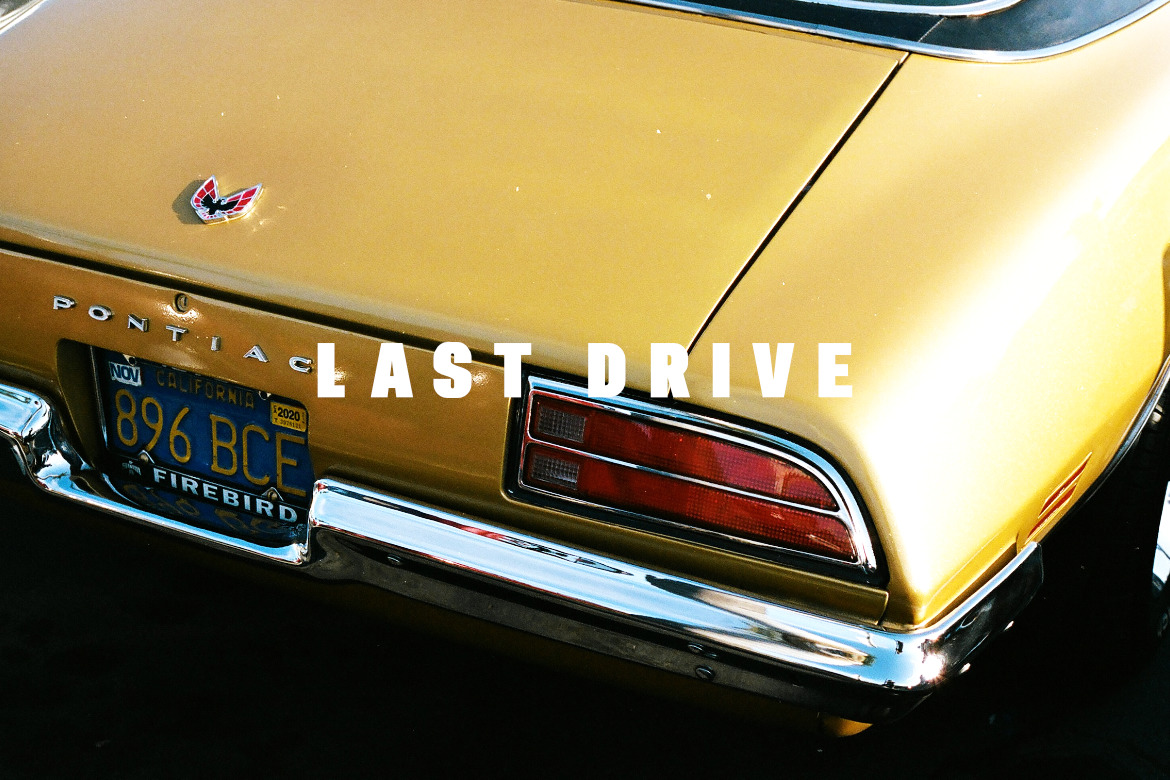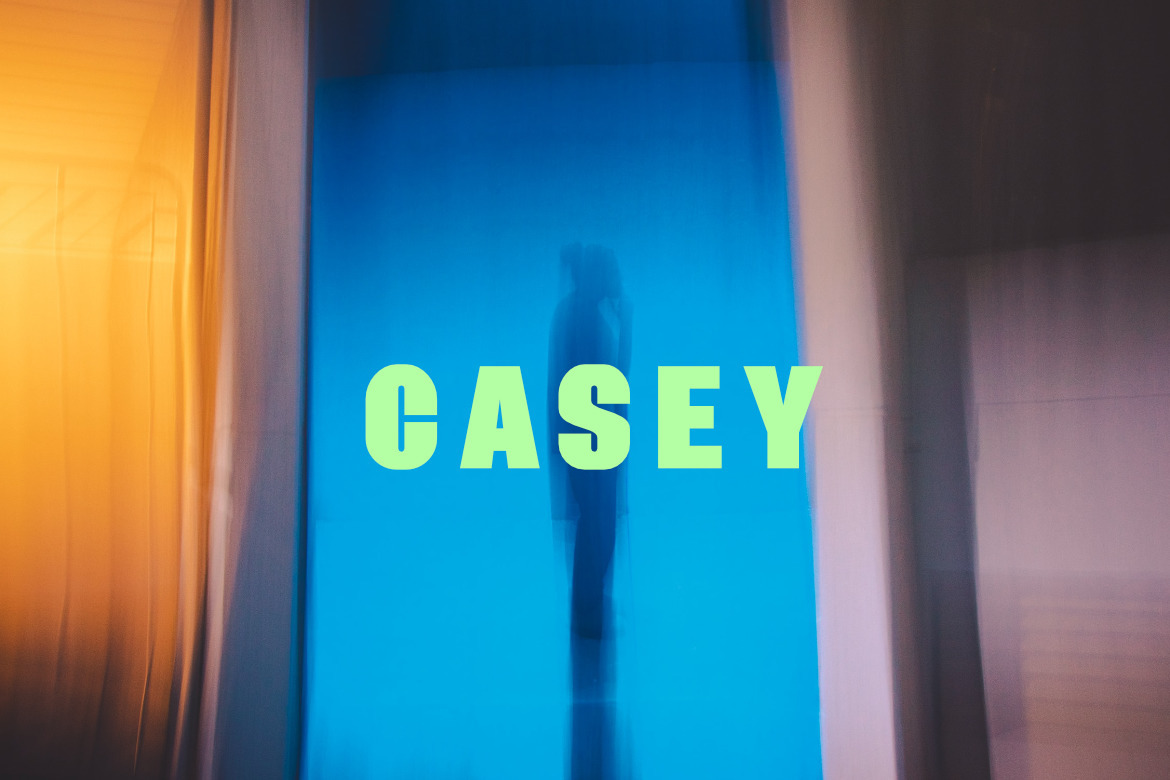
Creatball Font
About
Creatball is bold, straightforward, solemn, clean, and modern. This sans-serif font is all you need to create impeccable modern designs!